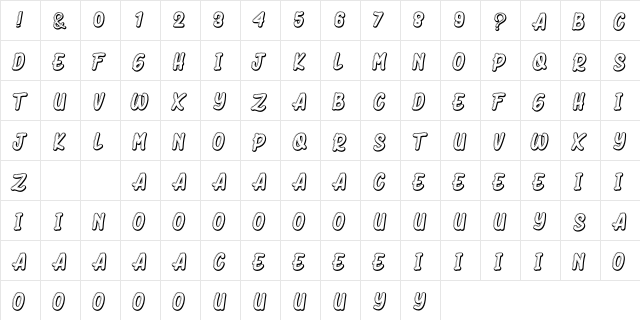
Dhuki Minerwo Regular
Design Context for Dhuki Minerwo Typeface
Dhuki Minerwo is a composed and adaptable typeface that performs quietly and consistently across a wide range of design contexts.
Pro Tip: Use Dhuki Minerwo in both headline and body roles to test its range before committing to a single application.